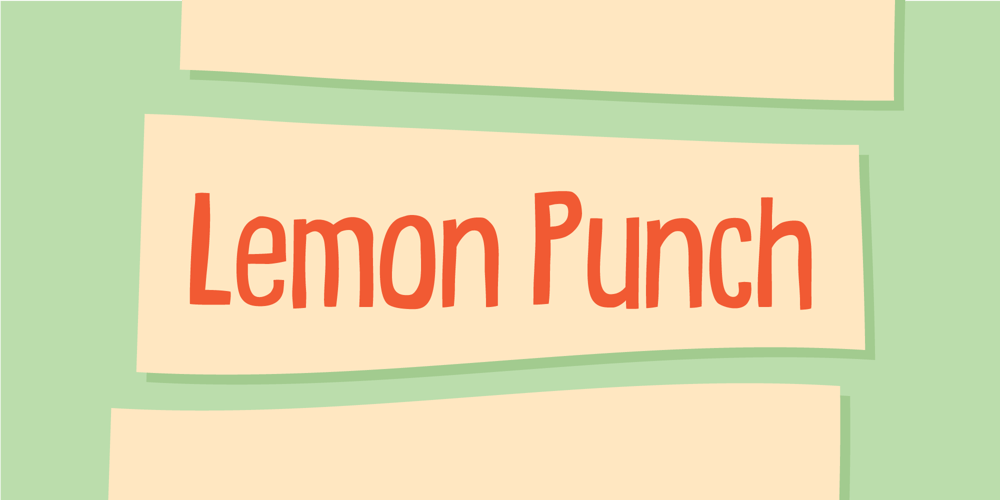
Lemon Punch
Lemon Punch font
Lemon Punch Font Family was designed by Jakob Fischer and published by PizzaDude.dk. Lemon Punch contains 2 styles and family package options. Lemon Punch is a delightful organic looking typeface. It is characterised by its natural and imperfect strokes that brings forth warmth and authenticity.The thickness of the lines varies throughout the font, emphasising the handmade strokes.Works surprisingly well in both lower- and uppercase!